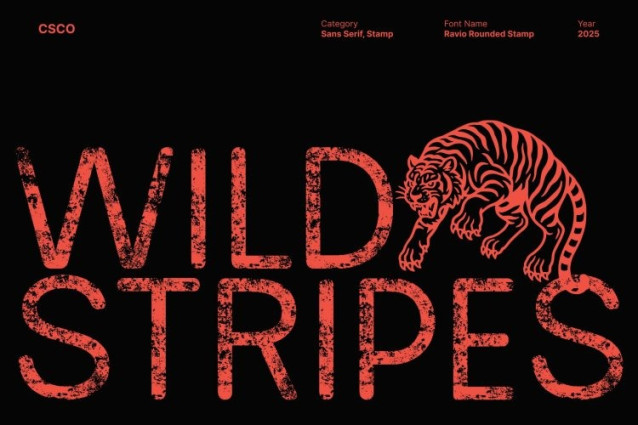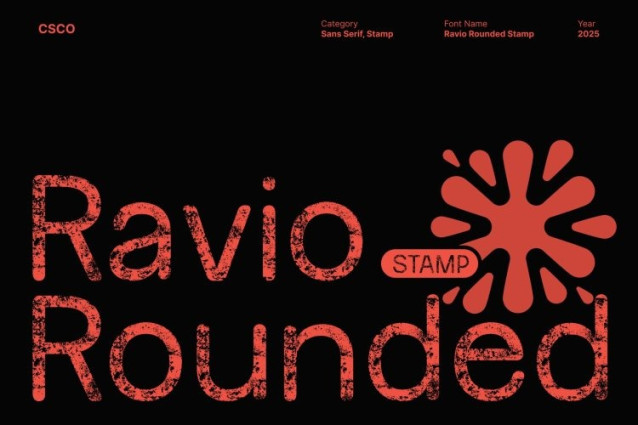
Ravio Rounded Stamp Font
Ravio Rounded Stamp Font This is a modern sans serif font designed with clean geometric forms and smooth rounded corners. Its balanced structure creates a contemporary, approachable, and visually friendly appearance making it perfect for designers who want a font that feels modern yet warm.
Geometric Precision with a Smooth, Welcoming Touch
The foundation of lies in its precise geometric shapes, which give the font a strong sense of order and clarity. These solid forms are balanced by rounded edges that enhance the font’s friendly personality. This combination results in a typeface that is professional but never cold, modern but never rigid ideal for designs needing both structure and charm.
Stamp Texture for Authentic Vintage Depth
To enrich its clean modern look, this font is enhanced with a textured stamp effect. The roughened edges and subtle imperfections create a vintage, tactile, and handcrafted feel, adding depth and character to its otherwise polished design. This contrast between smooth geometry and distressed texture gives the typeface a unique and expressive identity.
Perfect for Branding, Posters, and Creative Displays
This font stands out beautifully in branding, posters, packaging, signage, logos, and editorial headers. Its geometric foundation ensures clarity and versatility, while the stamped texture adds personality that makes every layout more memorable.